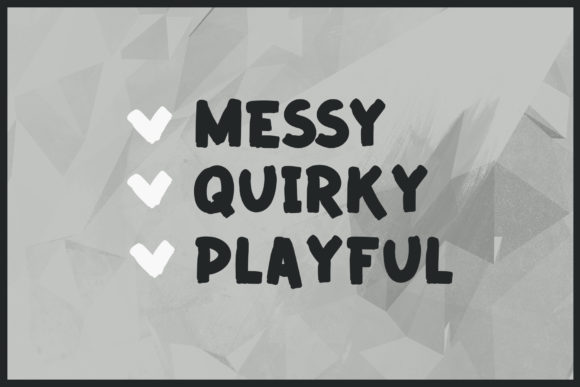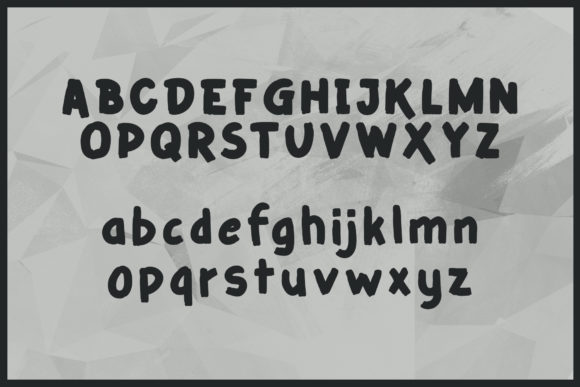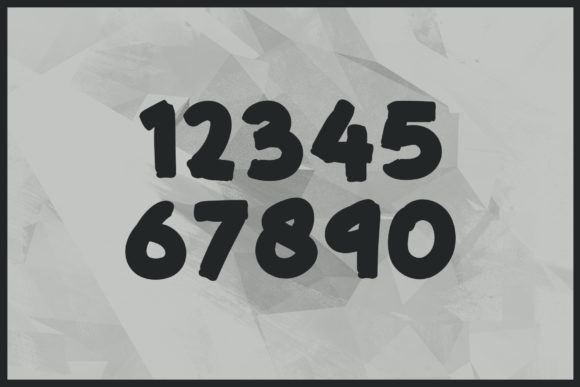
Introduction to Ronaldo Font
Ronaldo is a quirky display font, ready to give your designs a playful vibe.
This font it perfect for logos, posters, headlines, books, album covers and other branding materials .
Ronaldo Font offers exceptional quality and versatility, making it a valuable addition to your design toolkit. Whether you’re creating for personal projects or commercial use, Ronaldo Font delivers professional results.